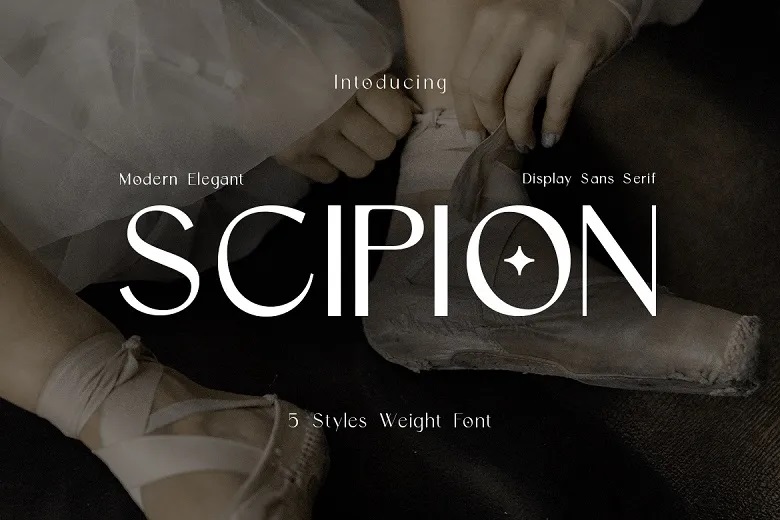
Scipion Font
Scipion is a contemporary sans serif typeface that is equal parts sleek and classy, every stroke of the font speaks to a elegance that will enhance your projects. Due to its smoothly rounded shapes, wide appearance, and five styles, this font helps you to develop designs that are clear and professional.
Scipion Sans Serif Font